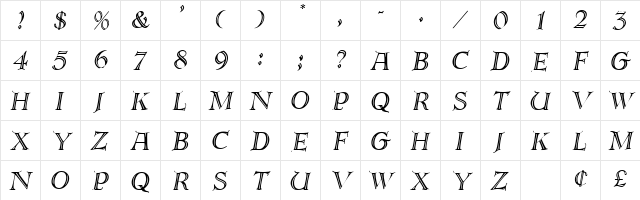
PatienceCaps Oblique
Design Context for PatienceCaps Typeface
PatienceCaps takes a measured approach to typography — its balanced proportions and neutral character make it a reliable workhorse for both digital and print work. Its italic angle brings a sense of urgency and motion to the letterforms.
Pro Tip: Try PatienceCaps for annotation and caption copy alongside an upright companion — the contrast in angle creates a dynamic but ordered typographic system.